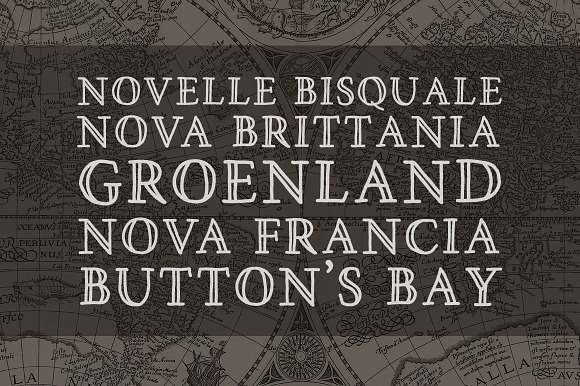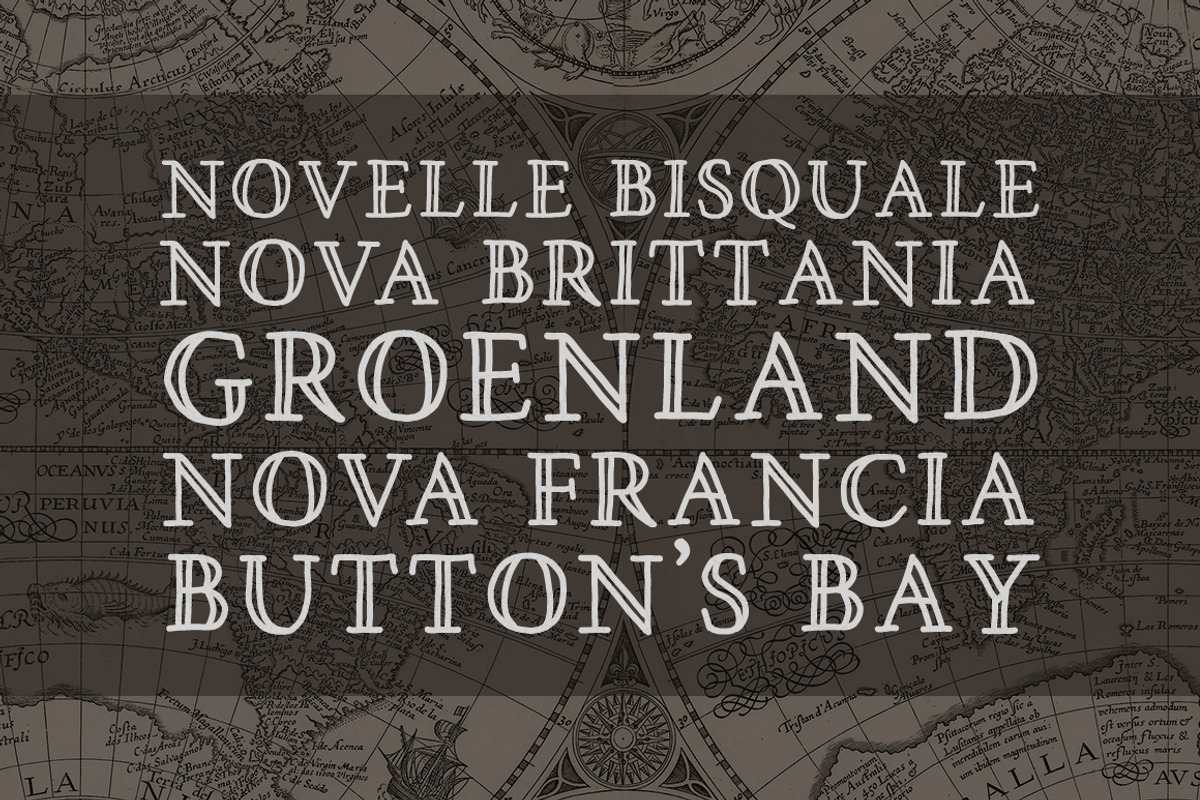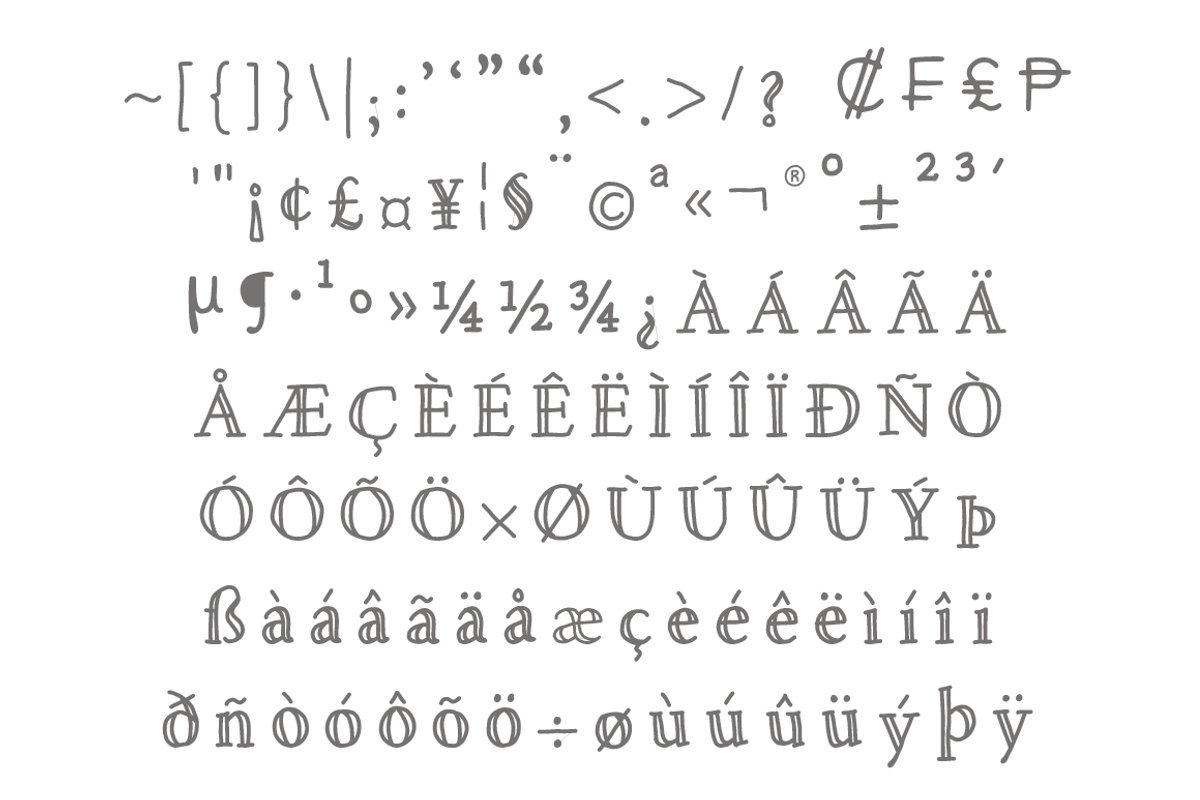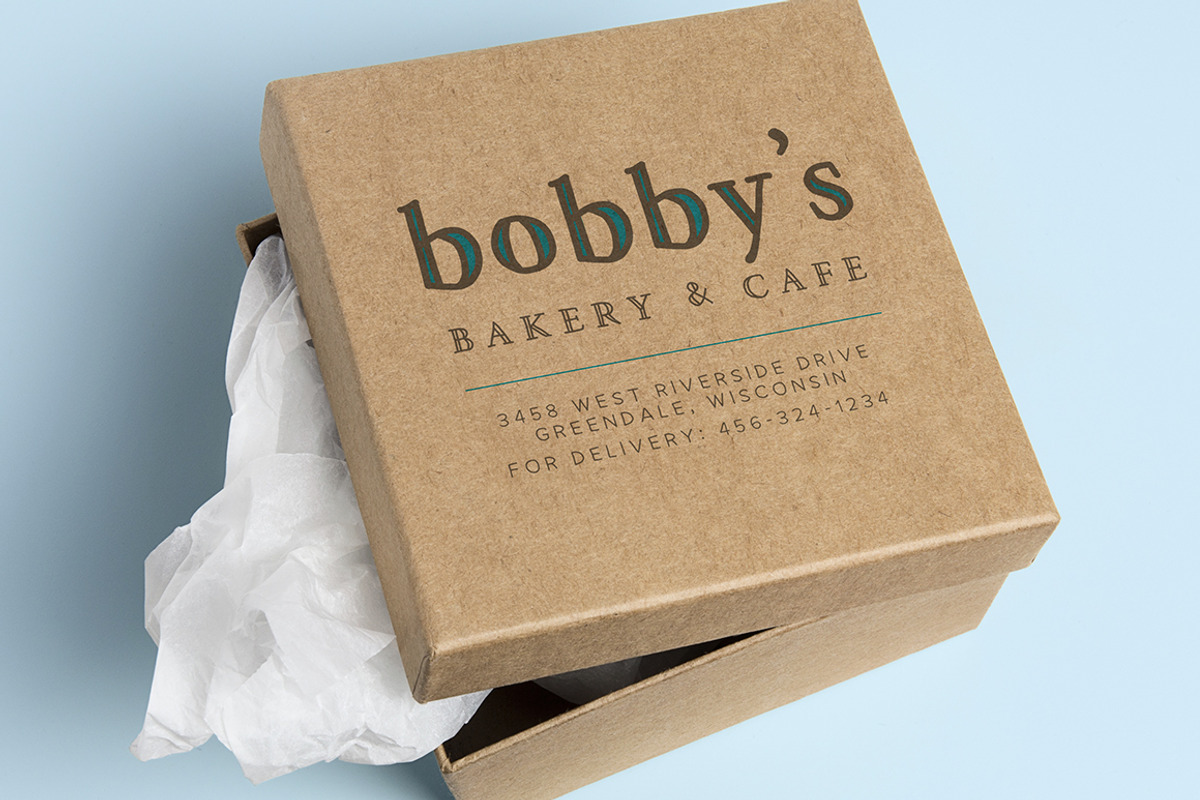
Hold Fast: hand drawn font
Hold Fast is a hand drawn, transitional typeface in a very rough and rustic style. It's best used for headlines, branding & packaging, and editorial design as well as creating digital illustrations.
Hold Fast: hand drawn font by Rachel Ortiz fits naturally into Branding, posters, packaging, typography.